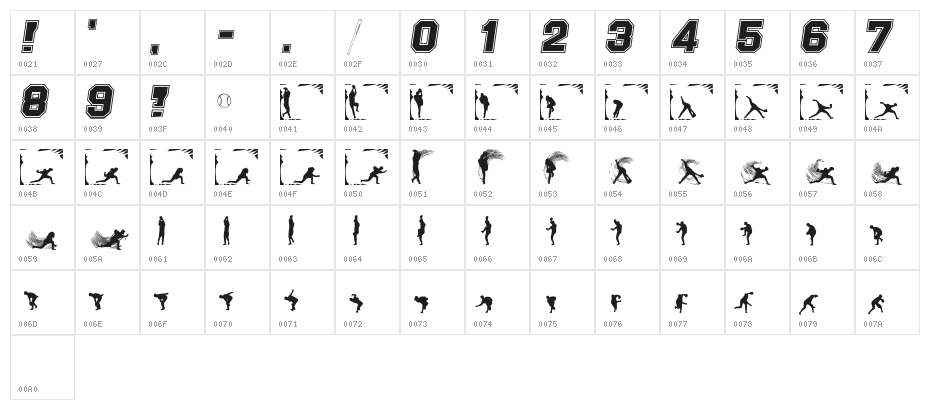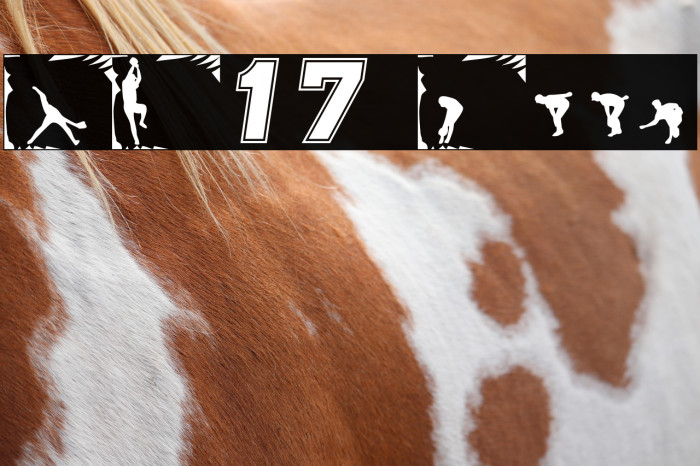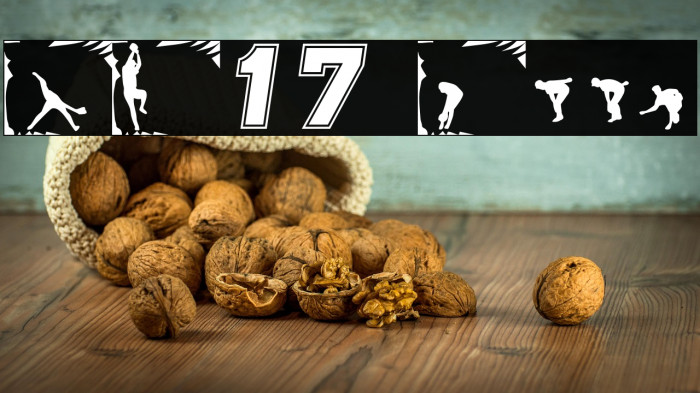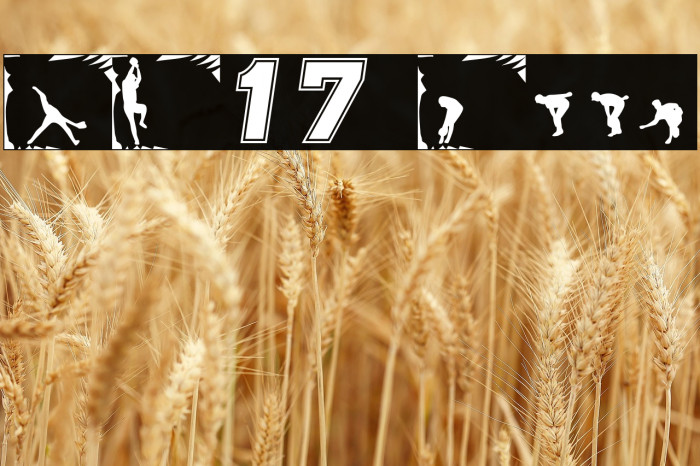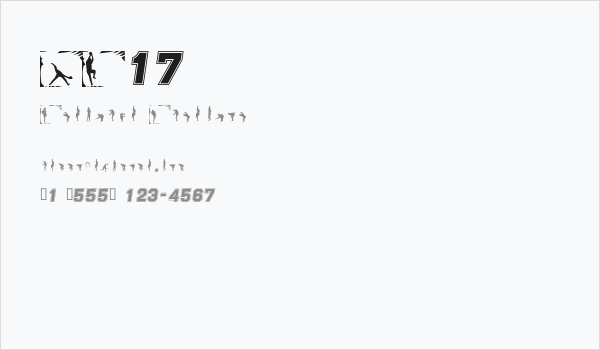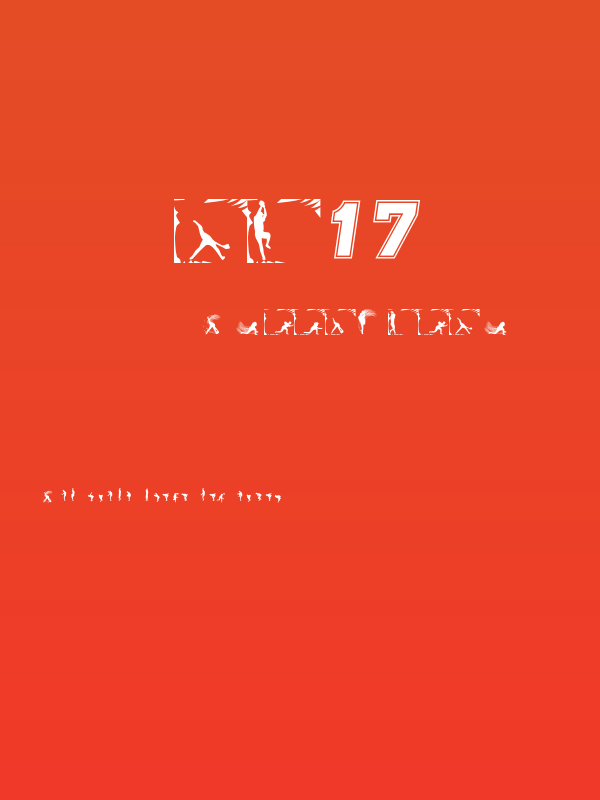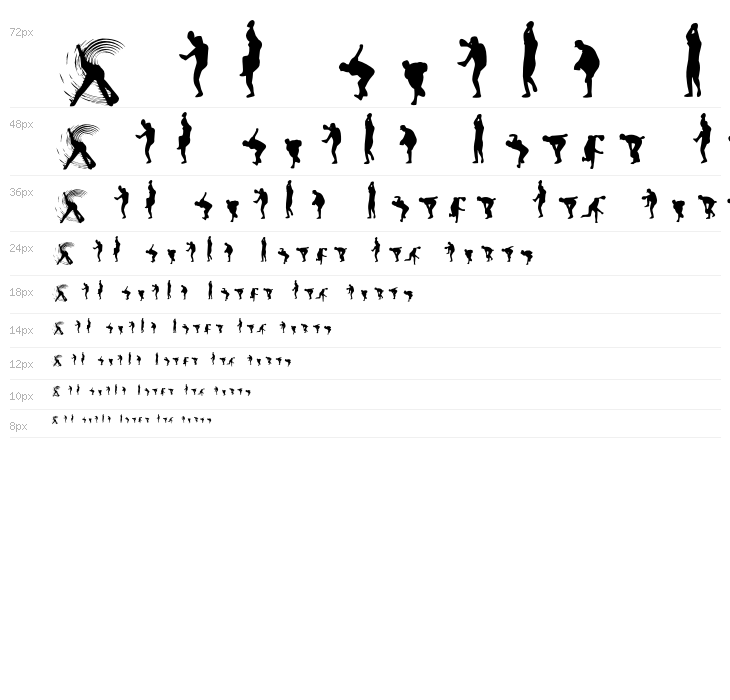
HB17 Font
HB17 Description
This is a unique and creative font that uses silhouettes of baseball players in various action poses to form each letter and number. The font is highly decorative and visually engaging, capturing the dynamic motion of the sport. Each character is crafted with attention to detail, showcasing different stances and movements, making it a perfect choice for sports-themed designs. The numbers are bold and outlined, adding a sense of depth and emphasis. The special characters include punctuation marks and symbols that maintain the sporty theme, adding to the overall cohesive look.
| Use Case | Logos, Headlines, Posters |
| Proposed Projects | Ideal for sports event posters, team merchandise, sports-themed websites, and promotional materials. |